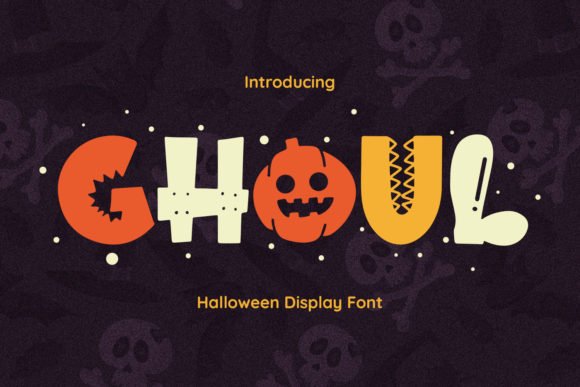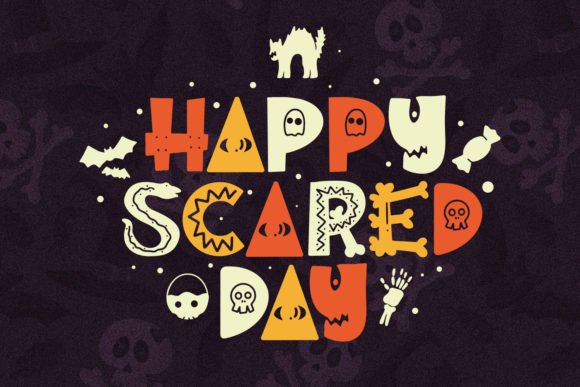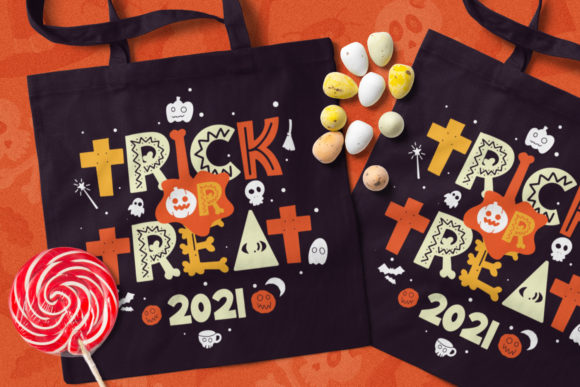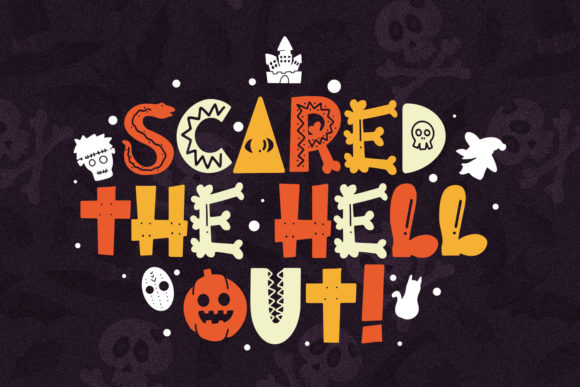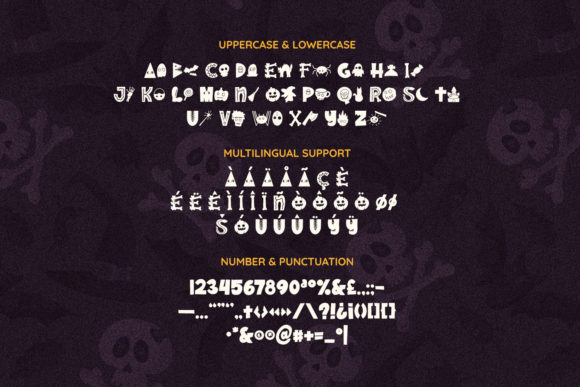
The Perfect Font for a Spooky Soiree: Unleashing the Ghoul Font
You’re rummaging through your design stash, searching for the perfect font to add a touch of eeriness to your Halloween project. Your fingers brush against a quirky, thick-lettered font that seems to whisper “trick or treat” in your ear. You can’t help but smile as you recall the countless Halloween parties you’ve attended, where the decorations and invitations set the tone for a spooky yet playful atmosphere.
This is where Ghoul Font comes in – a decorative font that’s tailor-made for any Halloween-related project. With its thick, bold letters, Ghoul Font adds a touch of whimsy and spookiness to your designs, making it the perfect addition to your crafting arsenal. For designers, Ghoul Font offers a versatile canvas to unleash their creativity, limited only by their imagination.
Ghoul Font Key Features
- Font Family: Ghoul is a sans-serif font family designed for display and body text.
- Font Sizes: Ghoul is designed for use at font sizes between 12px and 72px, with optimal readability at 14px and 24px.
- Unique Characteristics: Features a unique blend of modern and distressed textures, with subtle irregularities that add to its distinctive look.
Ghoul Font Review
Overall, I was really excited to dive into the Ghoul Font, but my experience was a bit of a mixed bag.
- Unique aesthetic: The Ghoul Font has a bold, gothic feel that’s perfect for adding a touch of mystery to your designs.
- Customizable: The font comes with a range of weights and styles, making it easy to customize to suit your needs.
- Good legibility: Despite its bold appearance, the Ghoul Font is surprisingly easy to read, even at smaller font sizes.
- Limited language support: The Ghoul Font only includes support for a few languages, which may limit its use for multilingual projects.
- Not ideal for body text: While the Ghoul Font is great for headings and titles, it’s not the best choice for body text due to its bold, attention-grabbing nature.
- May not be suitable for all audiences: The font’s gothic aesthetic may not be suitable for all audiences, particularly those who prefer more neutral or conservative designs.
Overall, the Ghoul Font is a great choice for designers who want to add a touch of mystery and drama to their designs. However, it’s not a one-size-fits-all solution, and its limitations should be carefully considered before use.
Ghoul Font Practical Application Guide
The Ghoul font is a unique, eerie typeface perfect for adding a spooky or mysterious touch to your designs. To use it, follow these steps:
To get the most out of the Ghoul font, try combining it with other design elements that evoke a sense of mystery or eeriness, such as fog, lightning, or abandoned textures.
The Ghoul font is perfect for:
- Halloween or horror-themed designs
- Mysterious or suspenseful stories
- Spooky or eerie atmosphere in video games or films
- Dark or gothic-inspired fashion or art